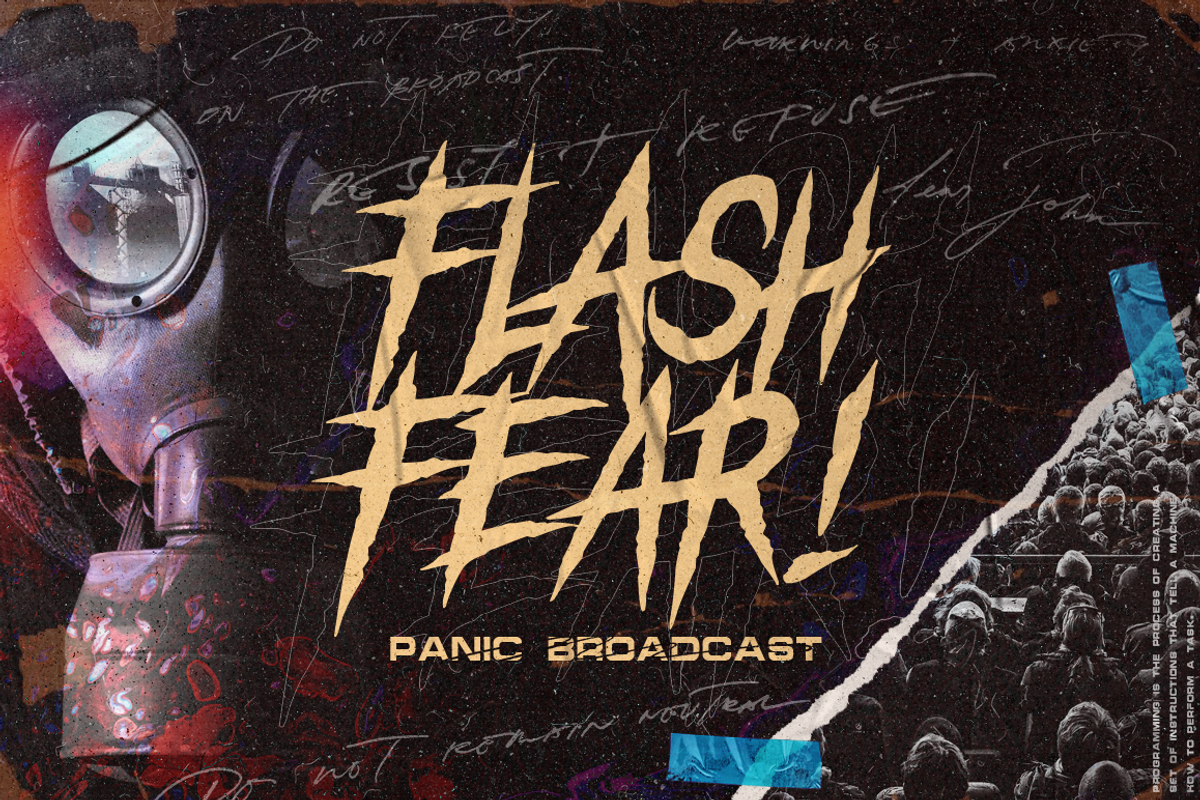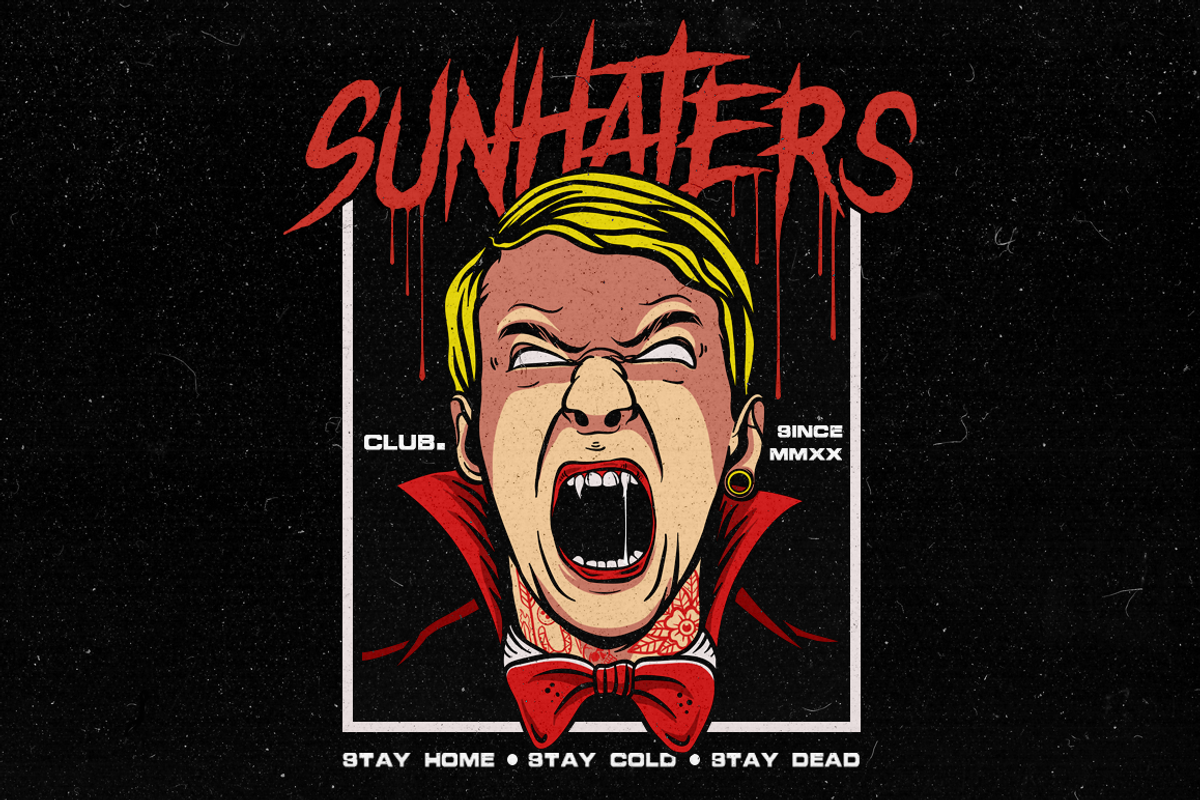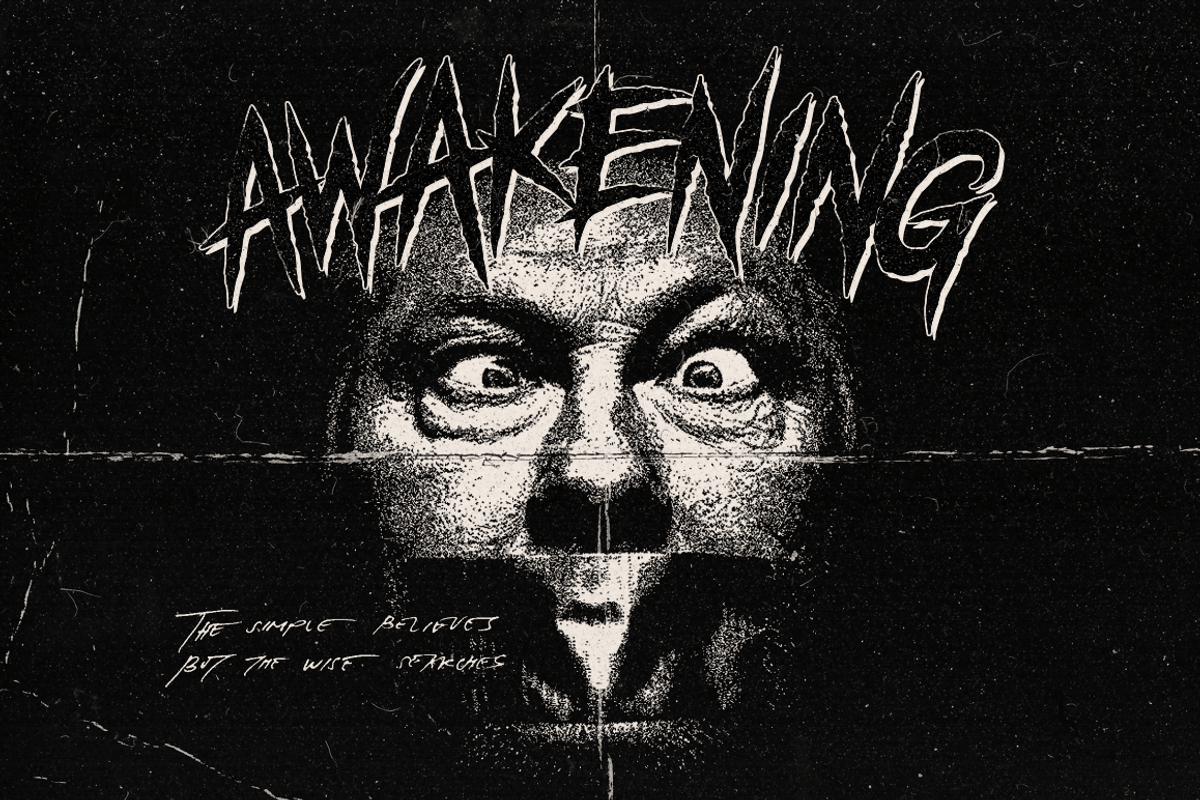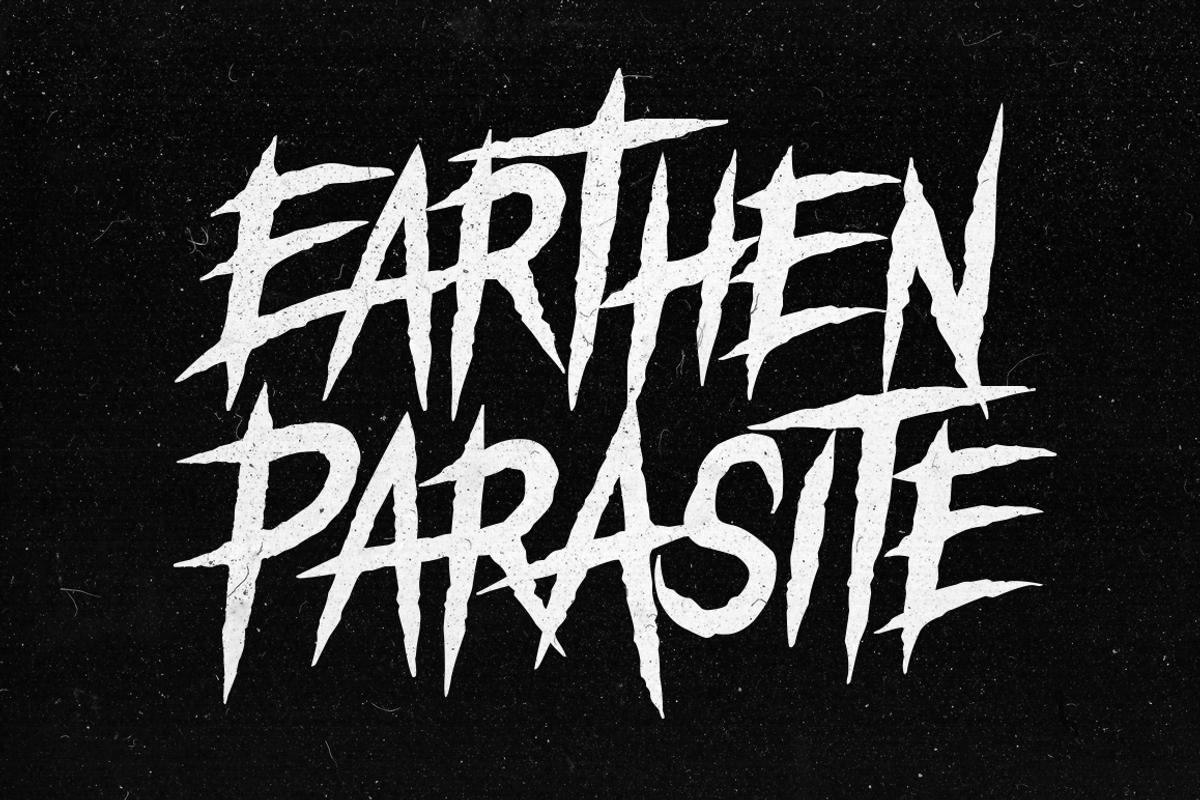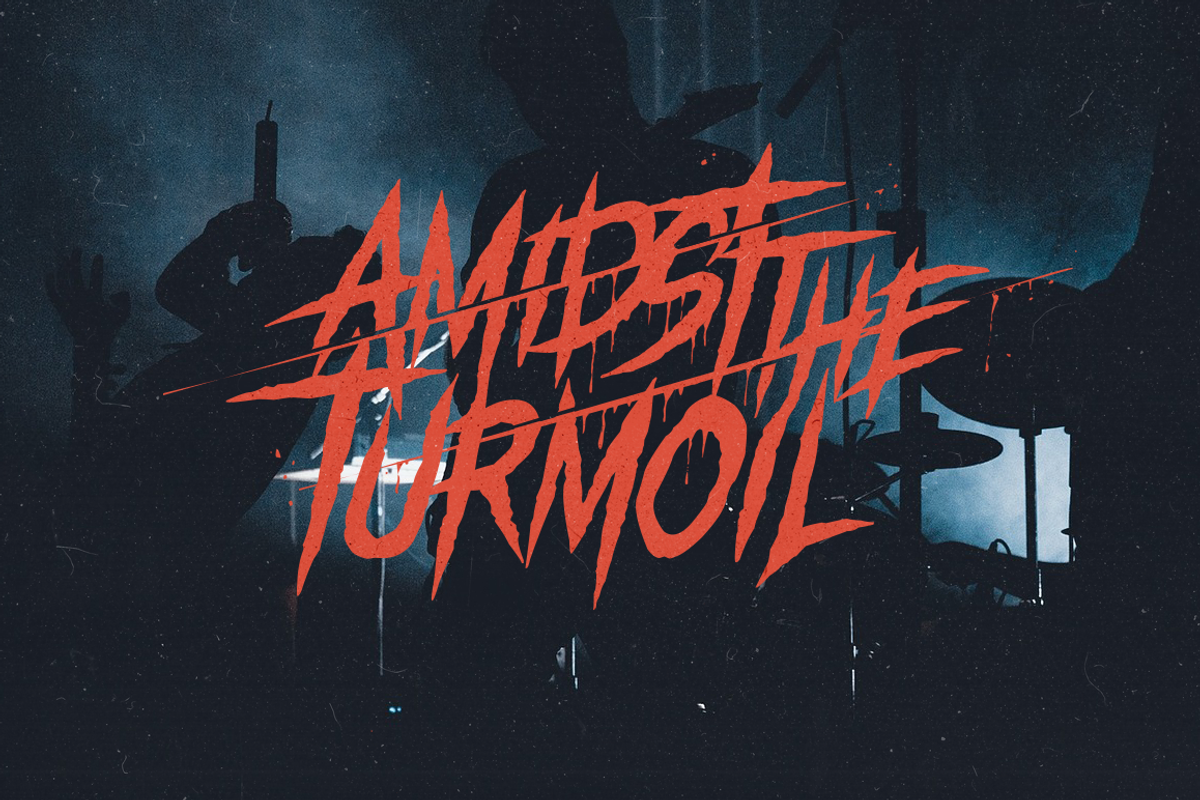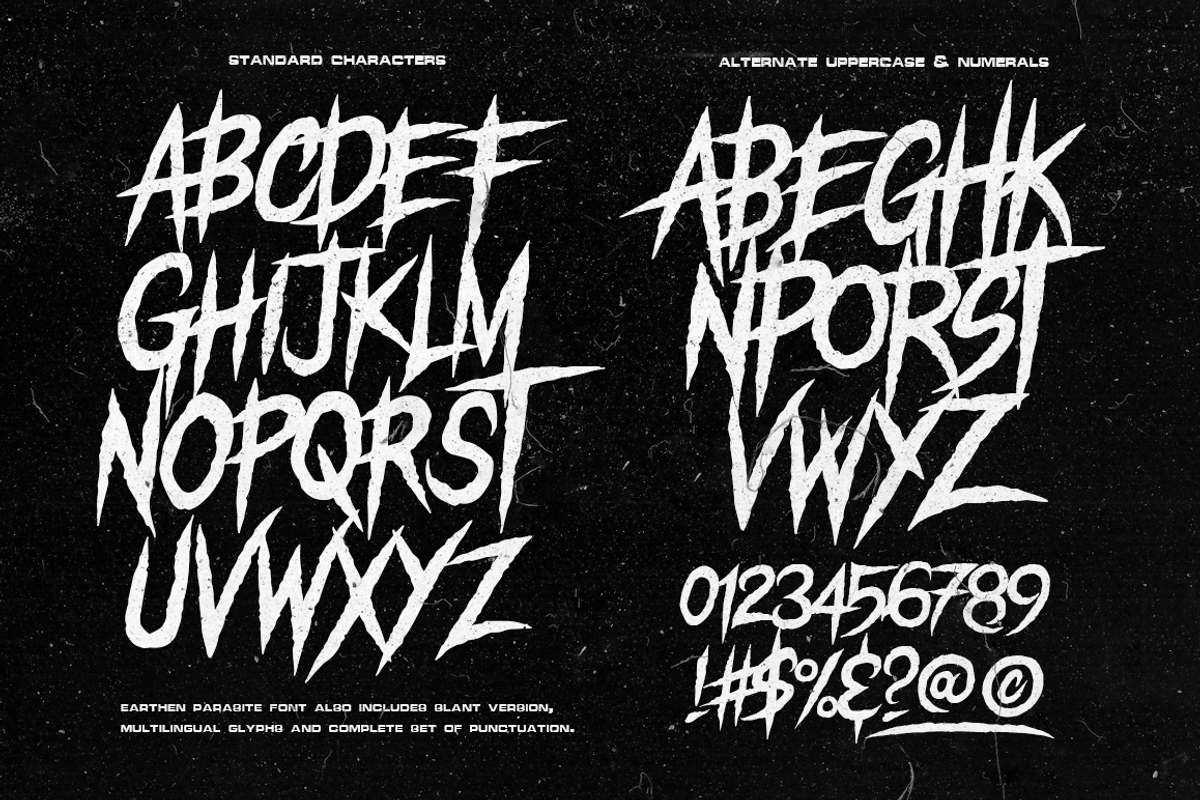
Earthen Parasite - Horror Font
Earthen Parasite is created to stir up the waters. A font best described as "restless nightmare" due to its looks. Incorporate a little havoc to your designs. Give in to the Earthen Parasite!
- Slant Version
- Alternates + Ligatures